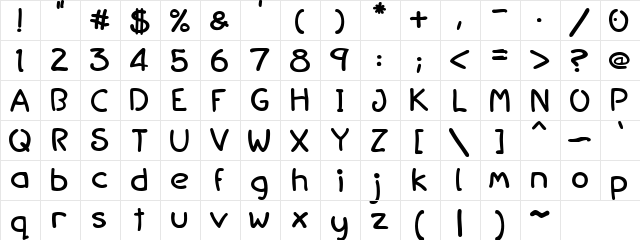
Jam N Bread Regular
Design Context for Jam N Bread Typeface
Jam N Bread is a composed and adaptable typeface that performs quietly and consistently across a wide range of design contexts.